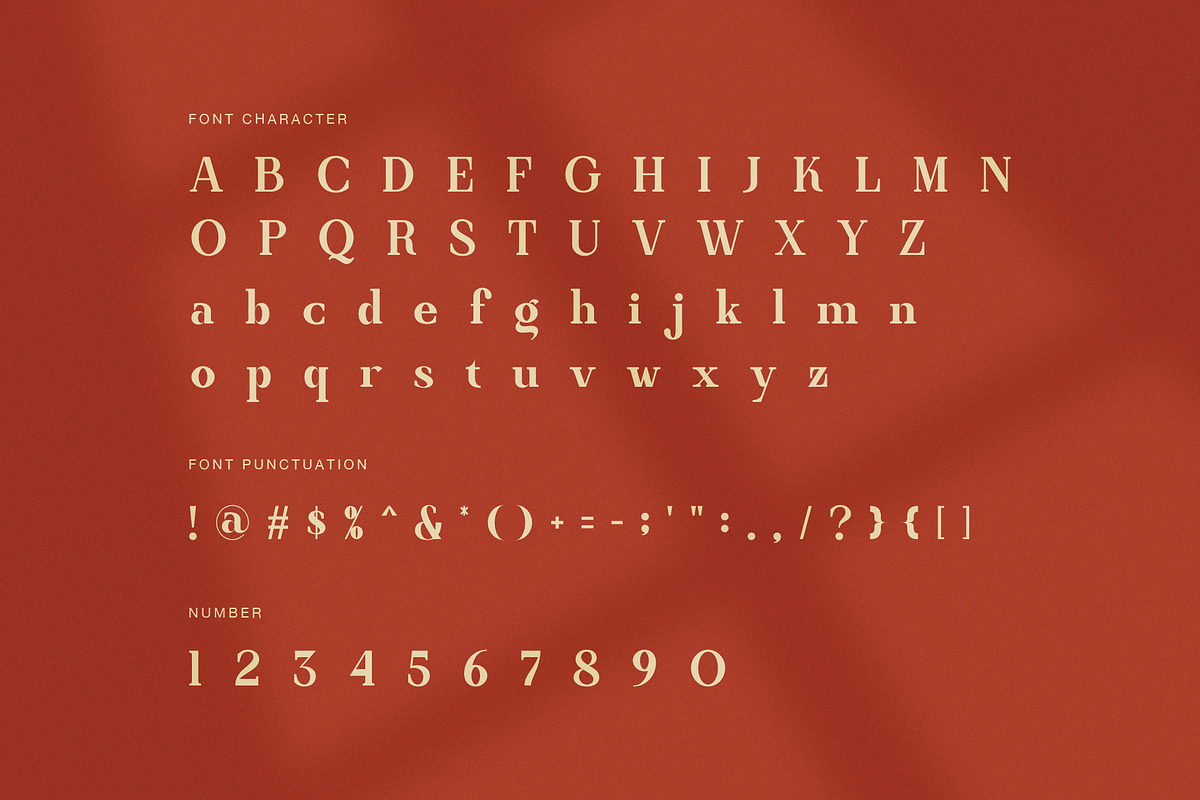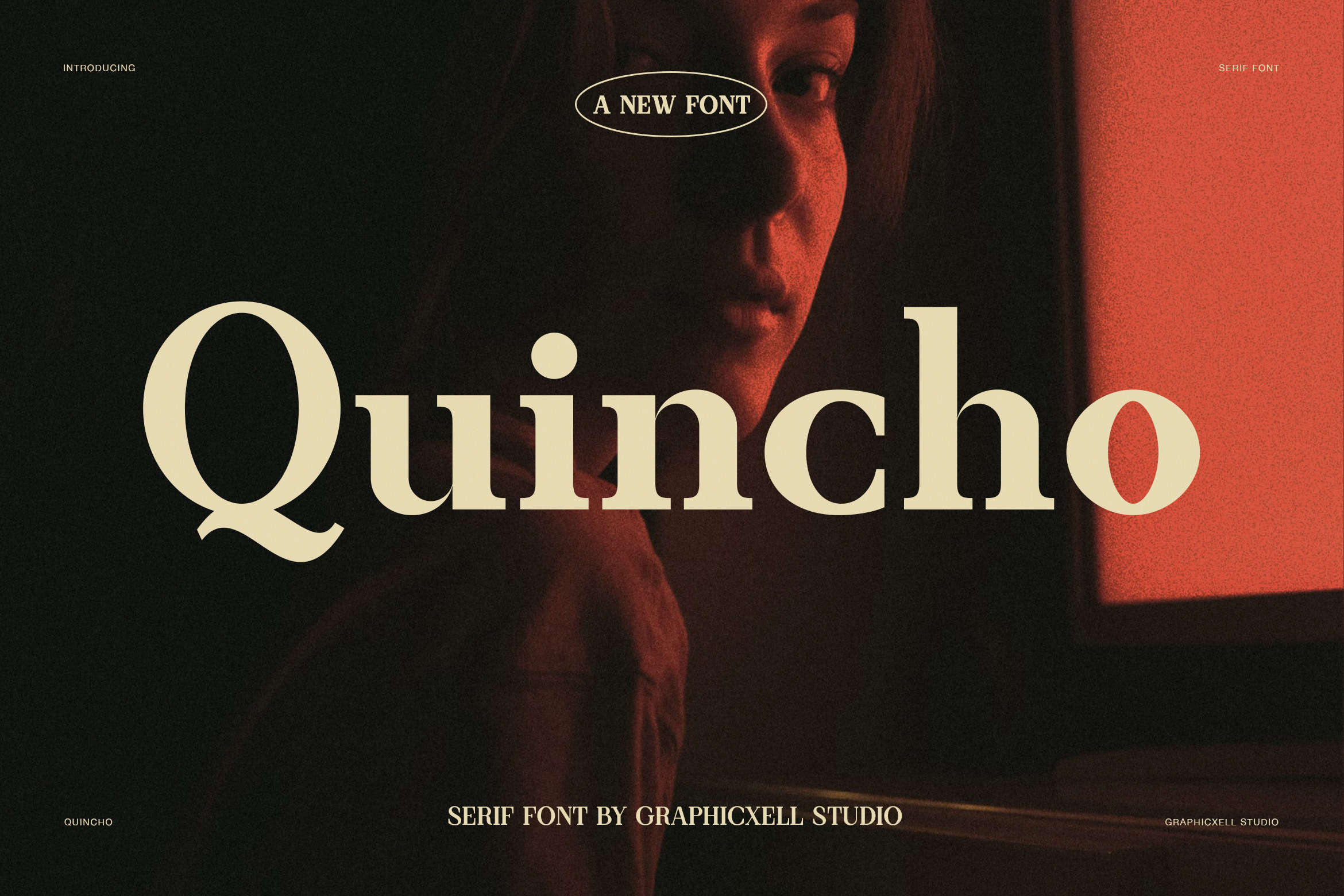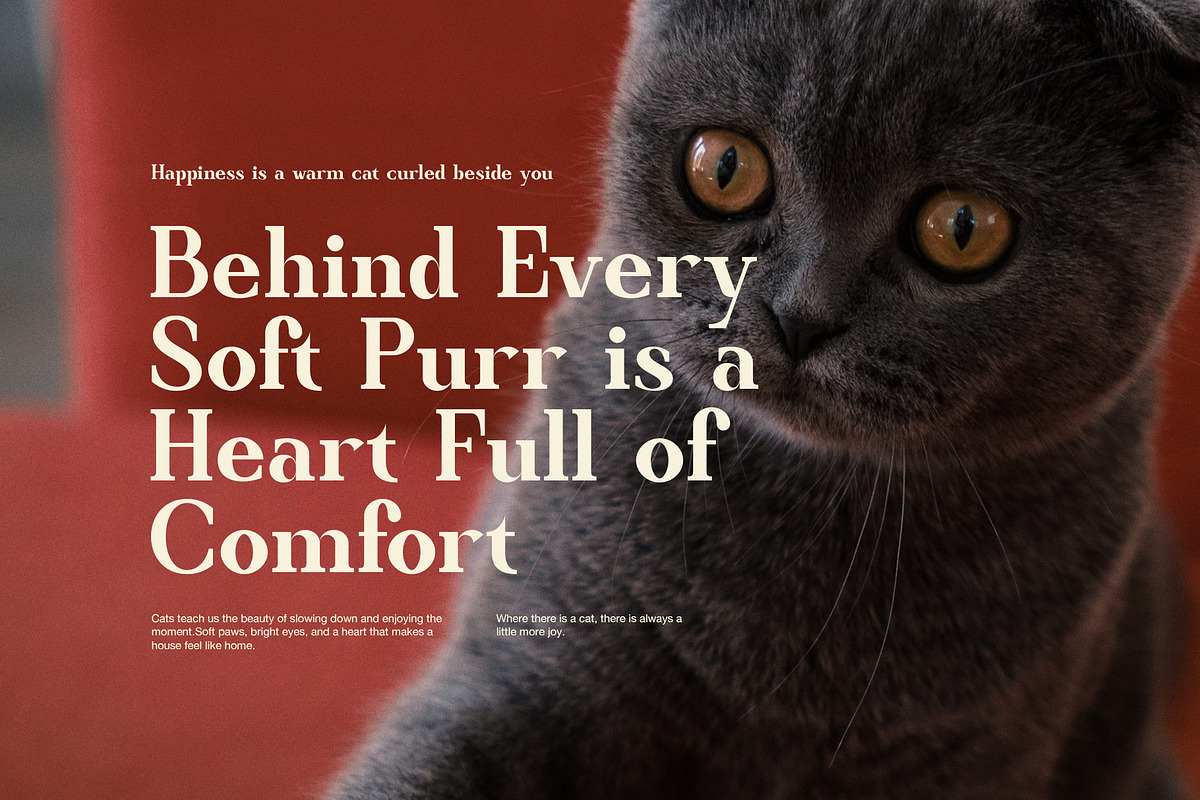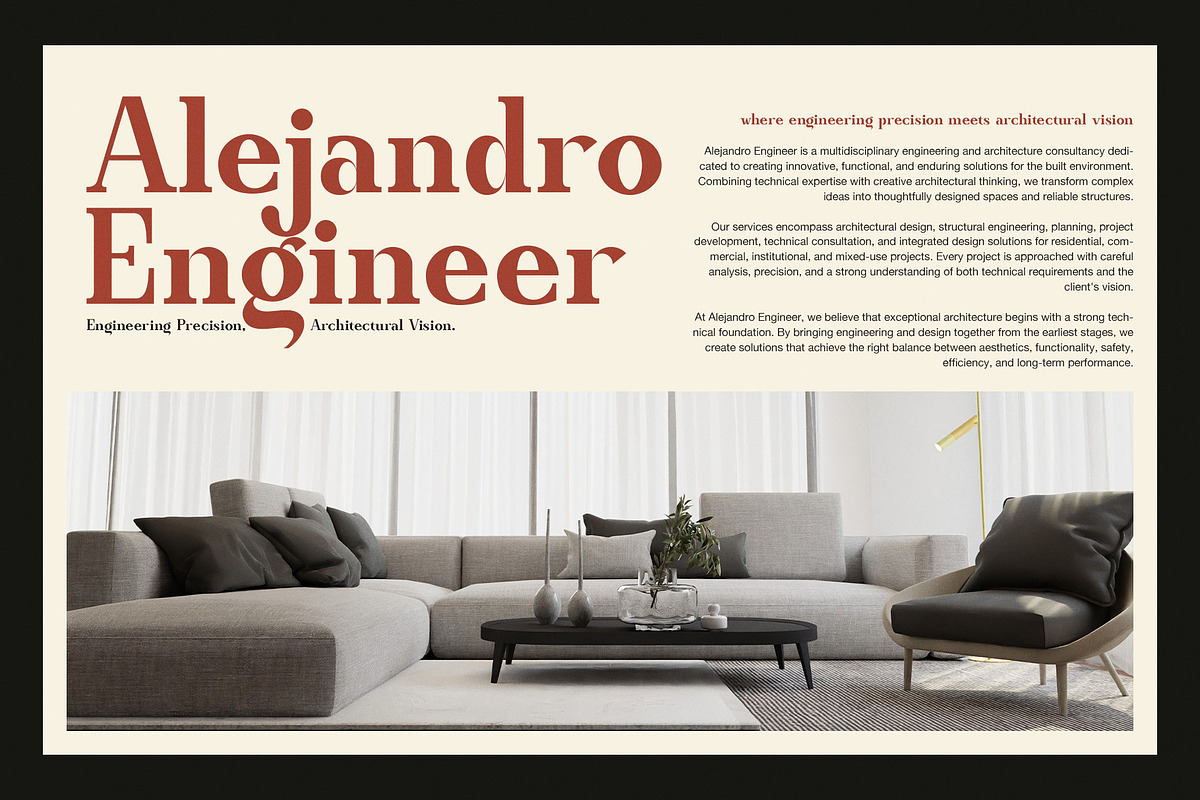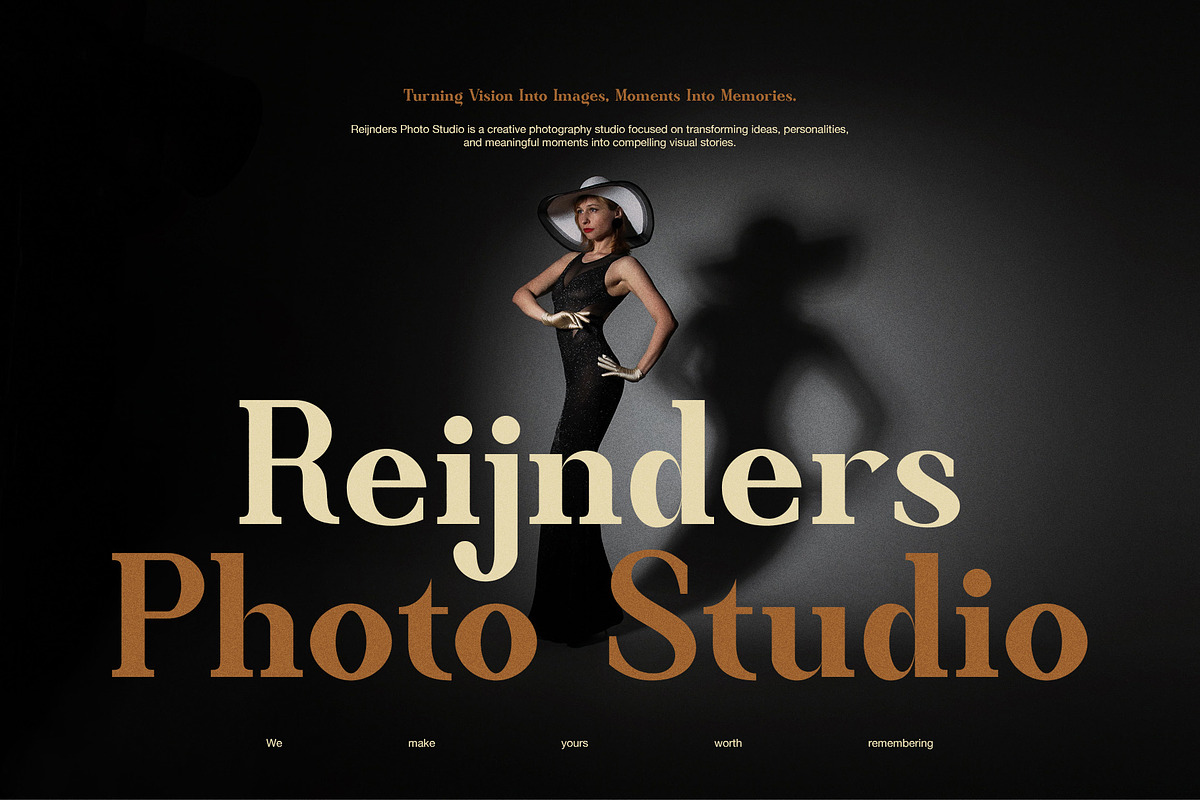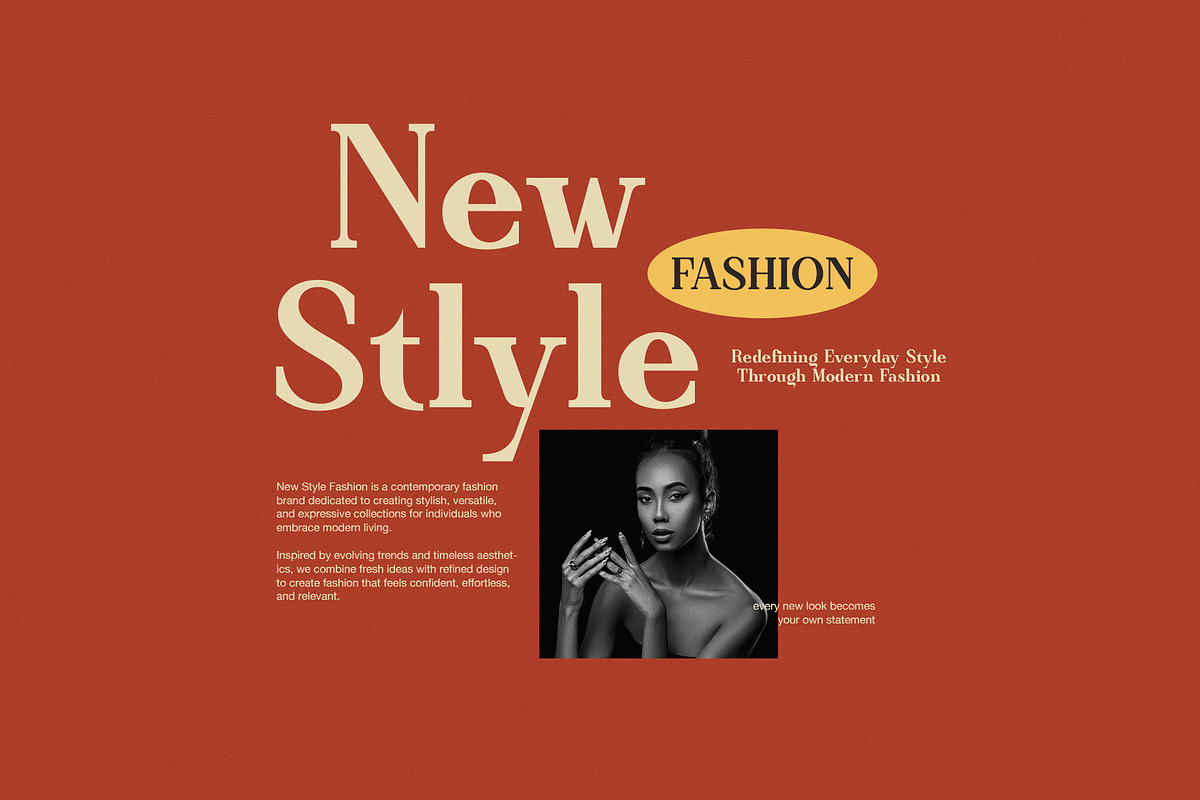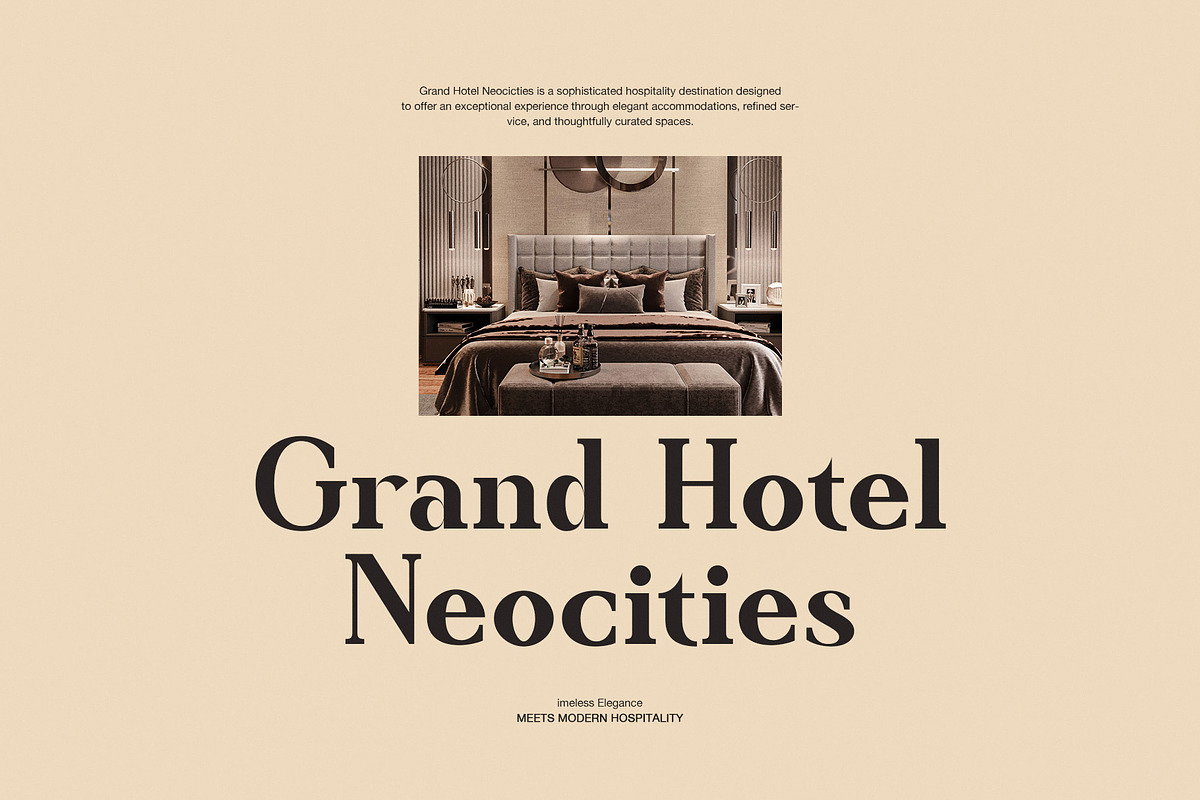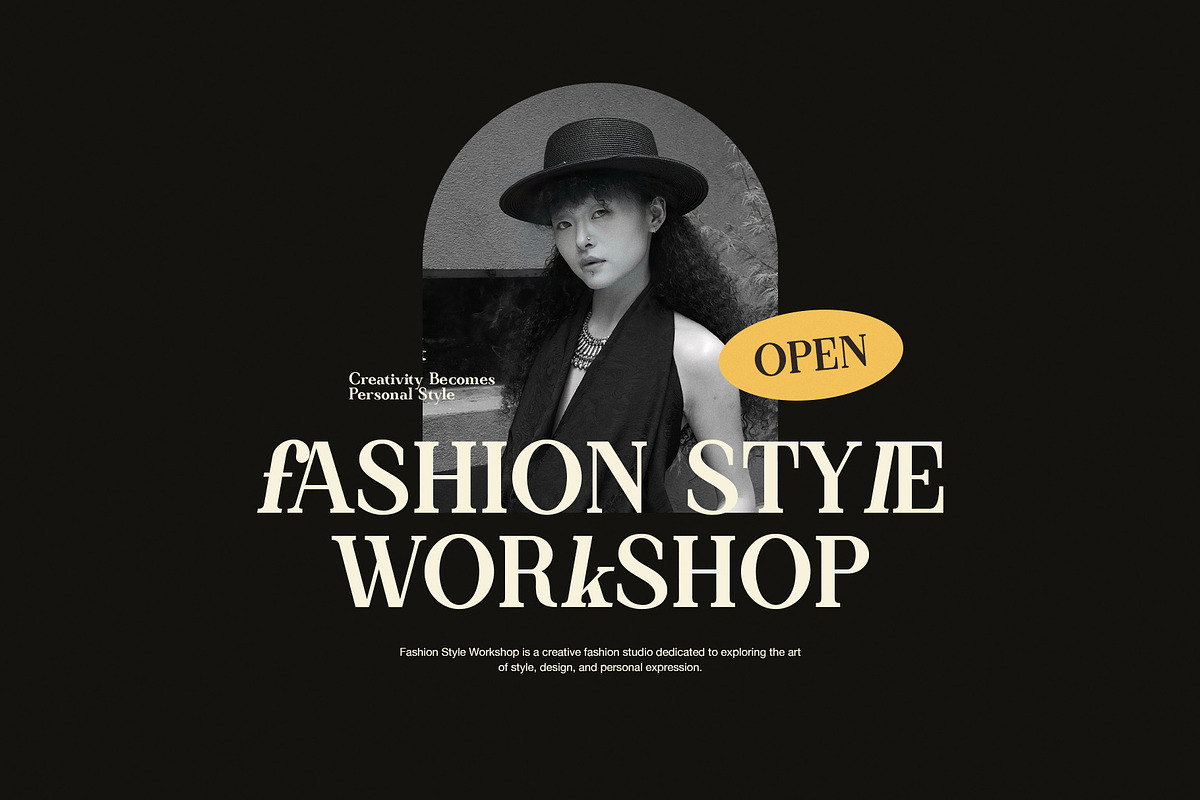
Quincho Bold Fashion Serif Font
Quincho is a bold fashion serif font designed for striking headlines, stylish branding, and modern editorial layouts. Its strong letterforms combine classic serif structure with a fresh and confident feel. As a result, Quincho gives every design a clear visual voice without losing its refined character.
The font features a strong contrast between thick strokes and finer details. Therefore, large words look powerful while still keeping an elegant shape. Its broad forms also create excellent presence across posters, covers, packaging, and brand graphics. Meanwhile, the softer curves add balance and keep the overall design from feeling too rigid.
Quincho includes uppercase and lowercase letters, numbers, and a useful set of punctuation marks. This makes the font flexible for both short headlines and wider design layouts. In addition, its carefully shaped characters give brand names a memorable appearance. The distinctive letter details can also help create a more personal and premium identity.
Bold high-contrast serif design
Strong fashion and editorial style
Refined yet confident letterforms
Distinctive character shapes
Numbers and punctuation
Excellent display presence
Clean and stylish visual rhythm
Ideal for branding and logo concepts
Works well in print and digital design
Quincho is a natural choice for fashion brands, luxury labels, magazine covers, and creative campaigns. It also works beautifully for photography studios, hotels, restaurants, interior design firms, and lifestyle brands. Furthermore, designers can use it for posters, lookbooks, social media graphics, invitations, and product packaging.
For a strong result, use Quincho as the main display font and pair it with a simple sans serif for smaller text. This creates a clear hierarchy while allowing the bold serif shapes to remain the focus. Because of its strong visual weight, the font performs especially well when given enough space around each word.
Quincho brings together classic serif qualities and modern fashion appeal. Therefore, it can fit both timeless and contemporary concepts. Whether you are creating a luxury logo, an editorial headline, or a premium campaign, this bold fashion serif font adds confidence and style.
With its strong strokes, elegant curves, and distinctive details, Quincho helps ordinary words become powerful visual elements. It is made for designers who want typography that feels polished, expressive, and easy to remember.